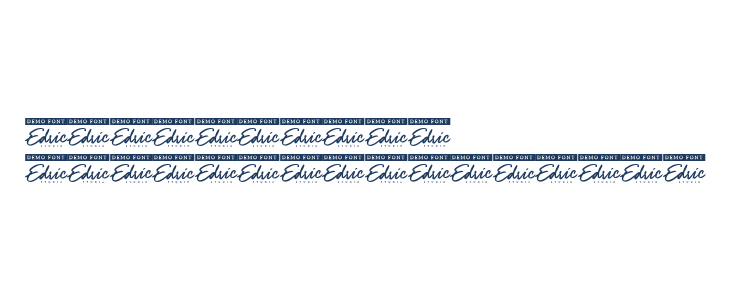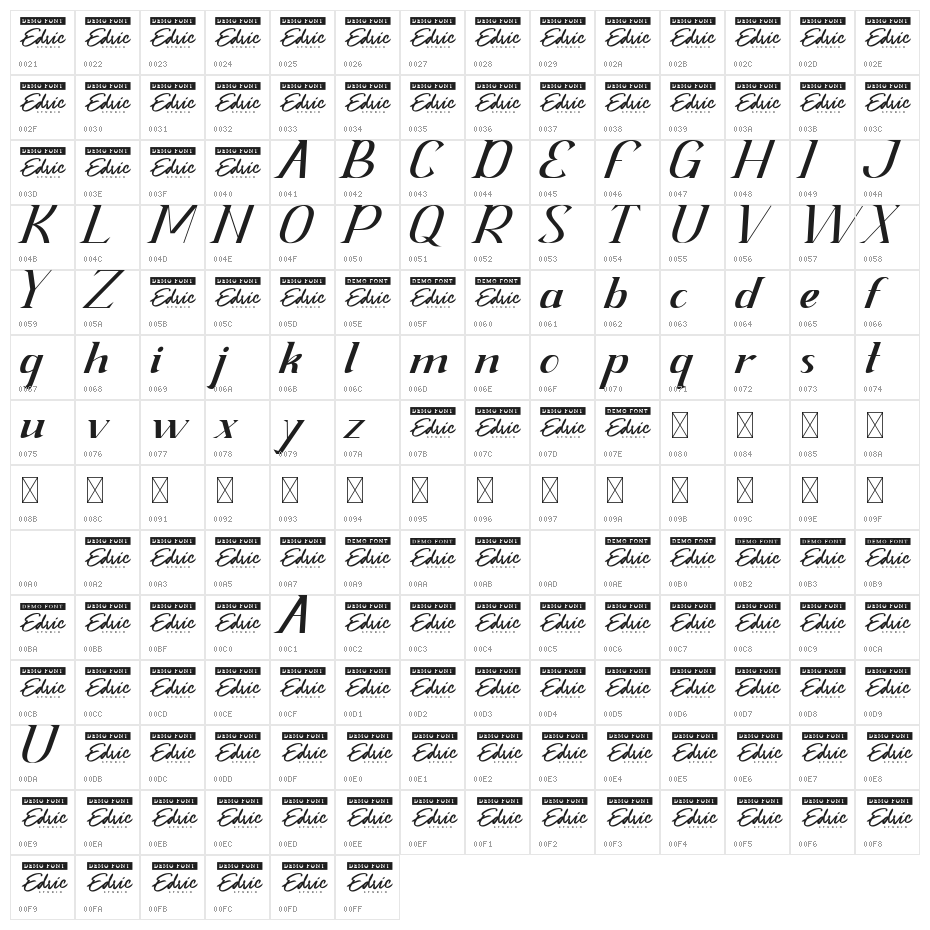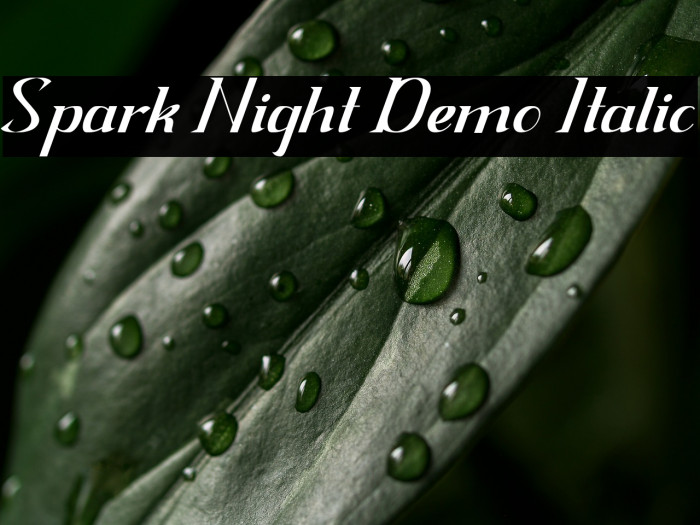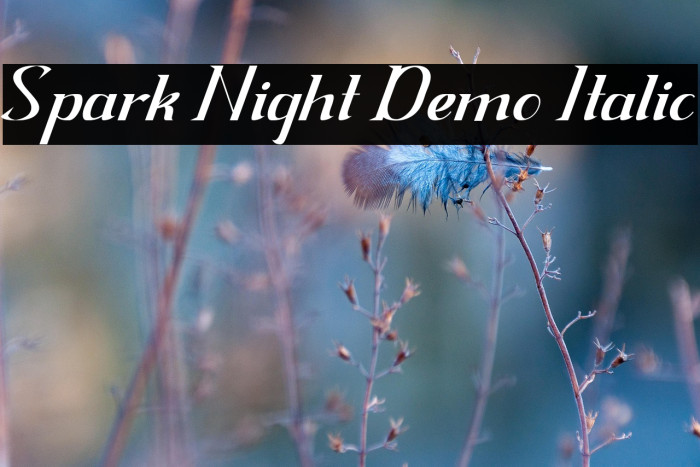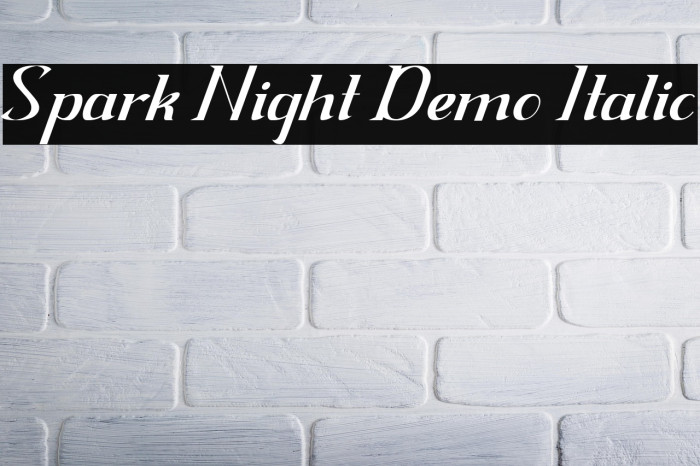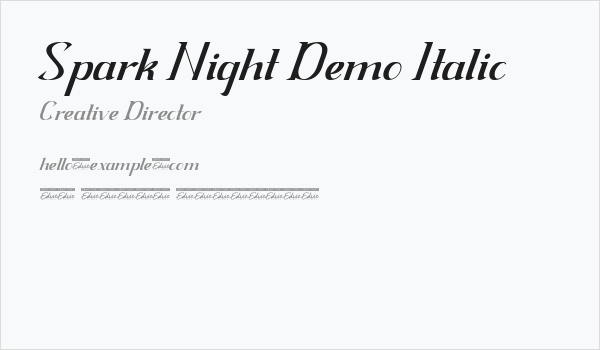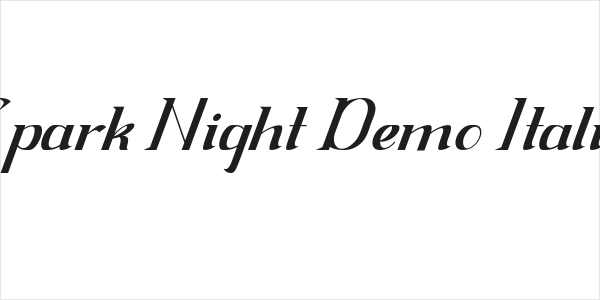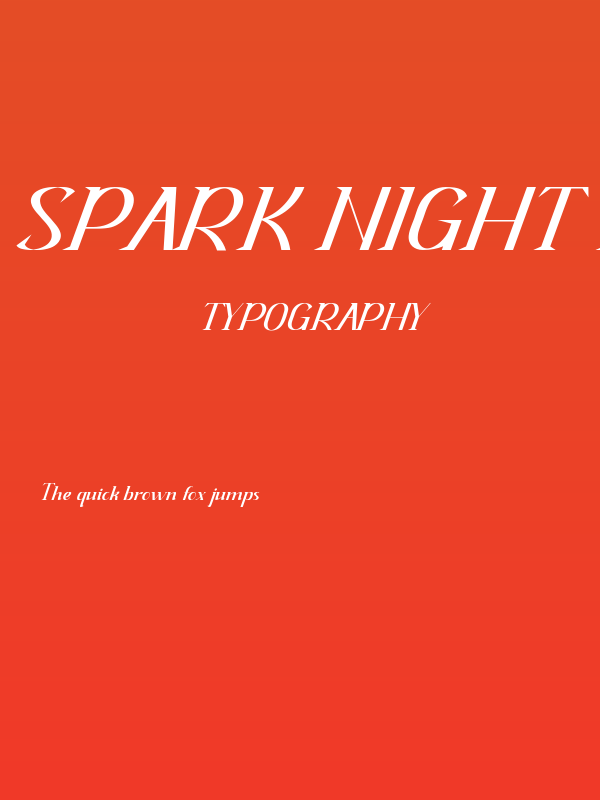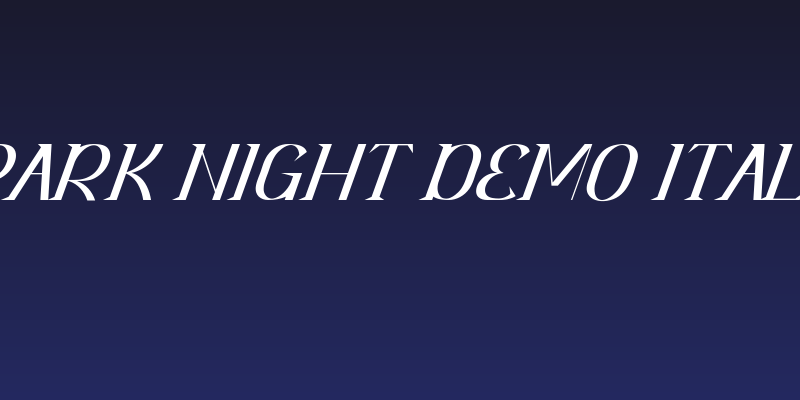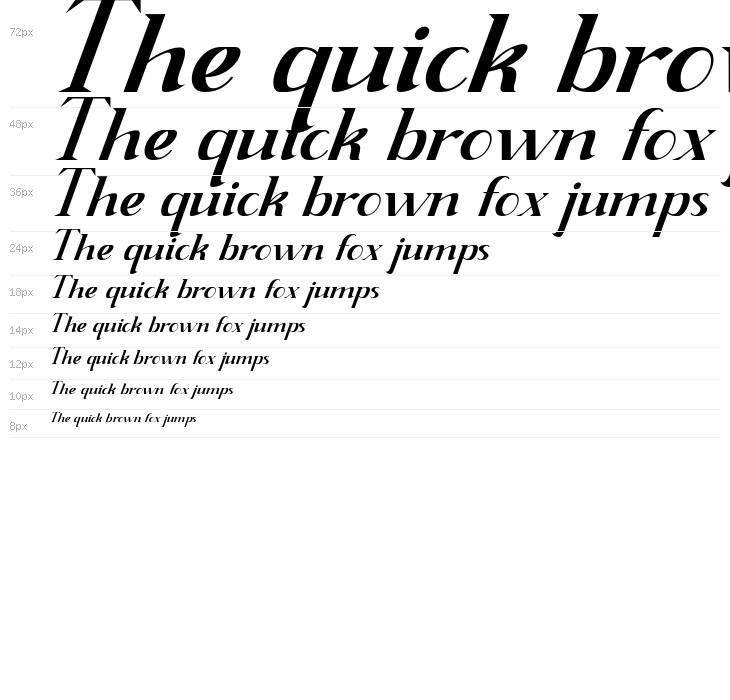
Spark Night Demo Italic Font
Spark Night Demo Italic Description
This elegant italic font features a sophisticated and flowing design, characterized by its smooth curves and sharp angles. The uppercase letters exhibit a graceful slant, enhancing the font's dynamic appearance. The lowercase letters maintain a consistent style, with elongated strokes that add to the font's fluidity. The numerals are designed to match the overall aesthetic, ensuring a cohesive look. This font's unique style makes it suitable for projects that require a touch of elegance and modernity.
| Proposed Projects | Ideal for wedding invitations, luxury branding, fashion magazines, and elegant logo designs. |